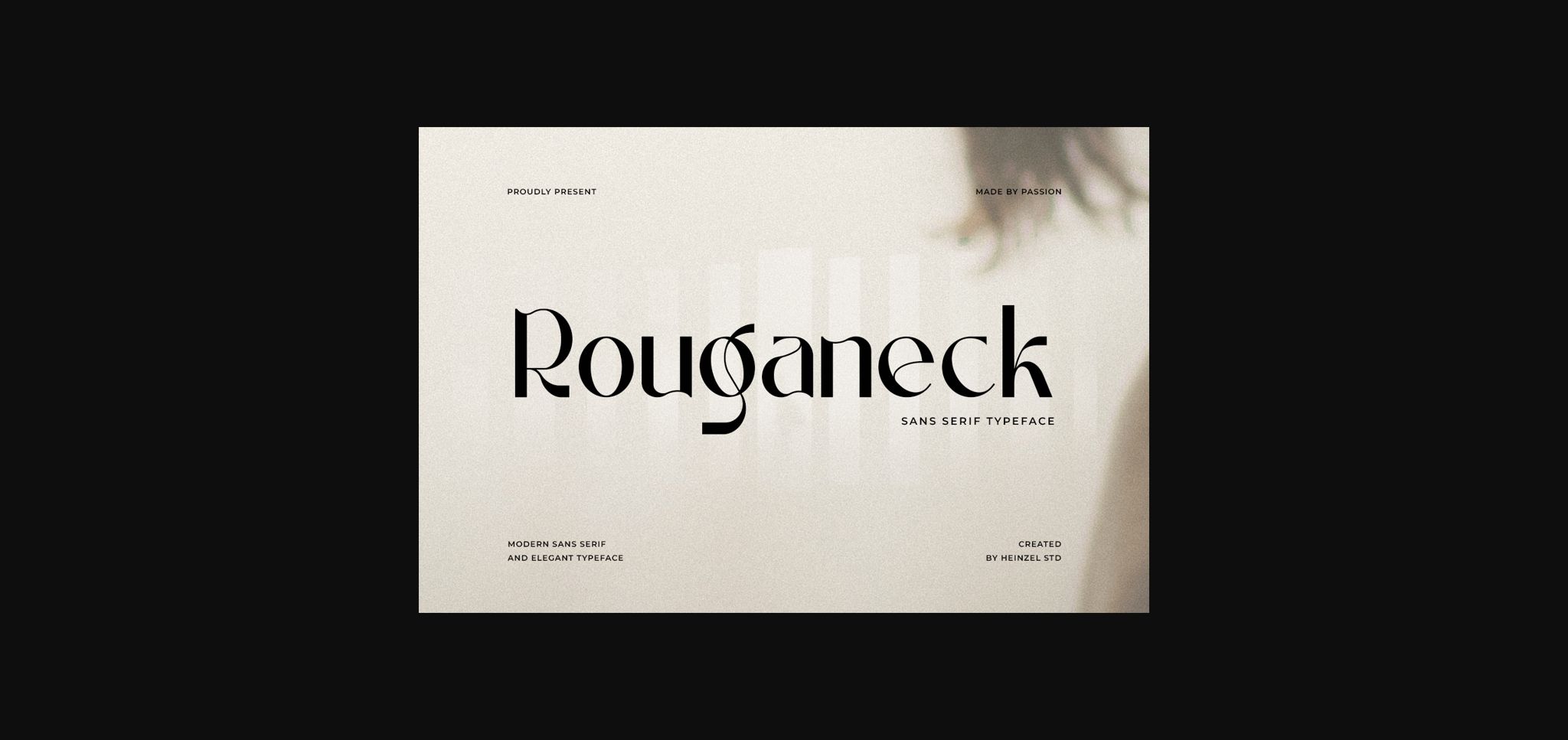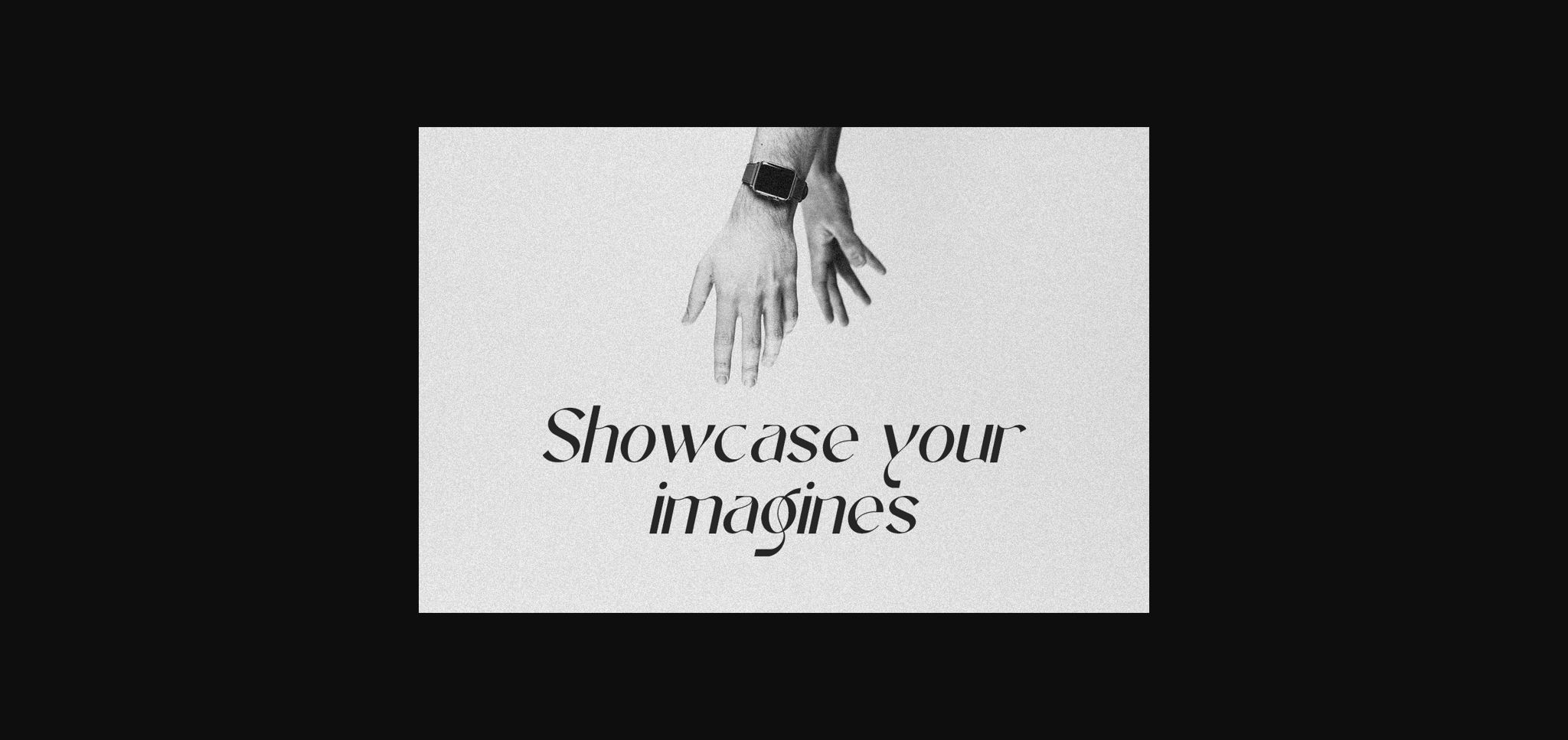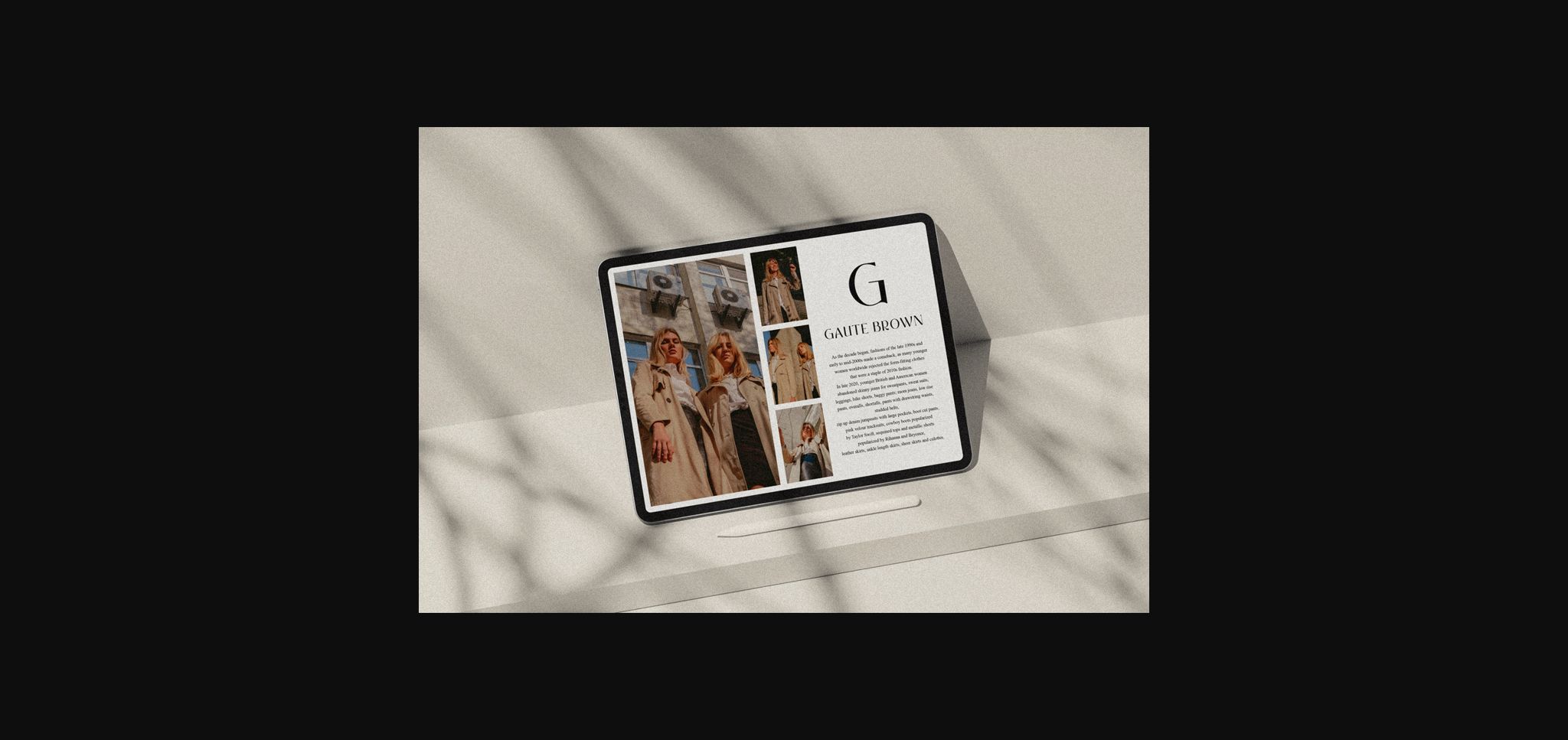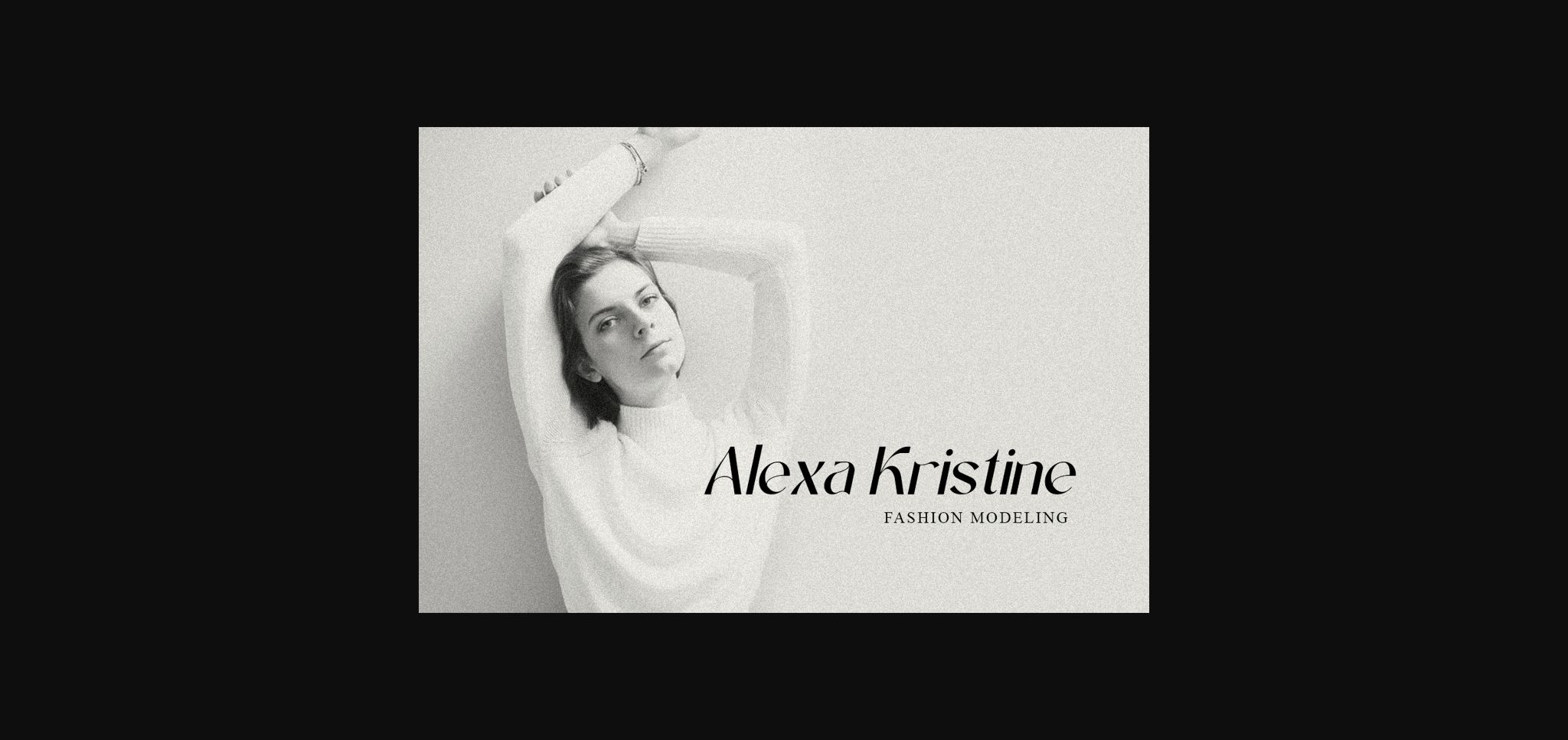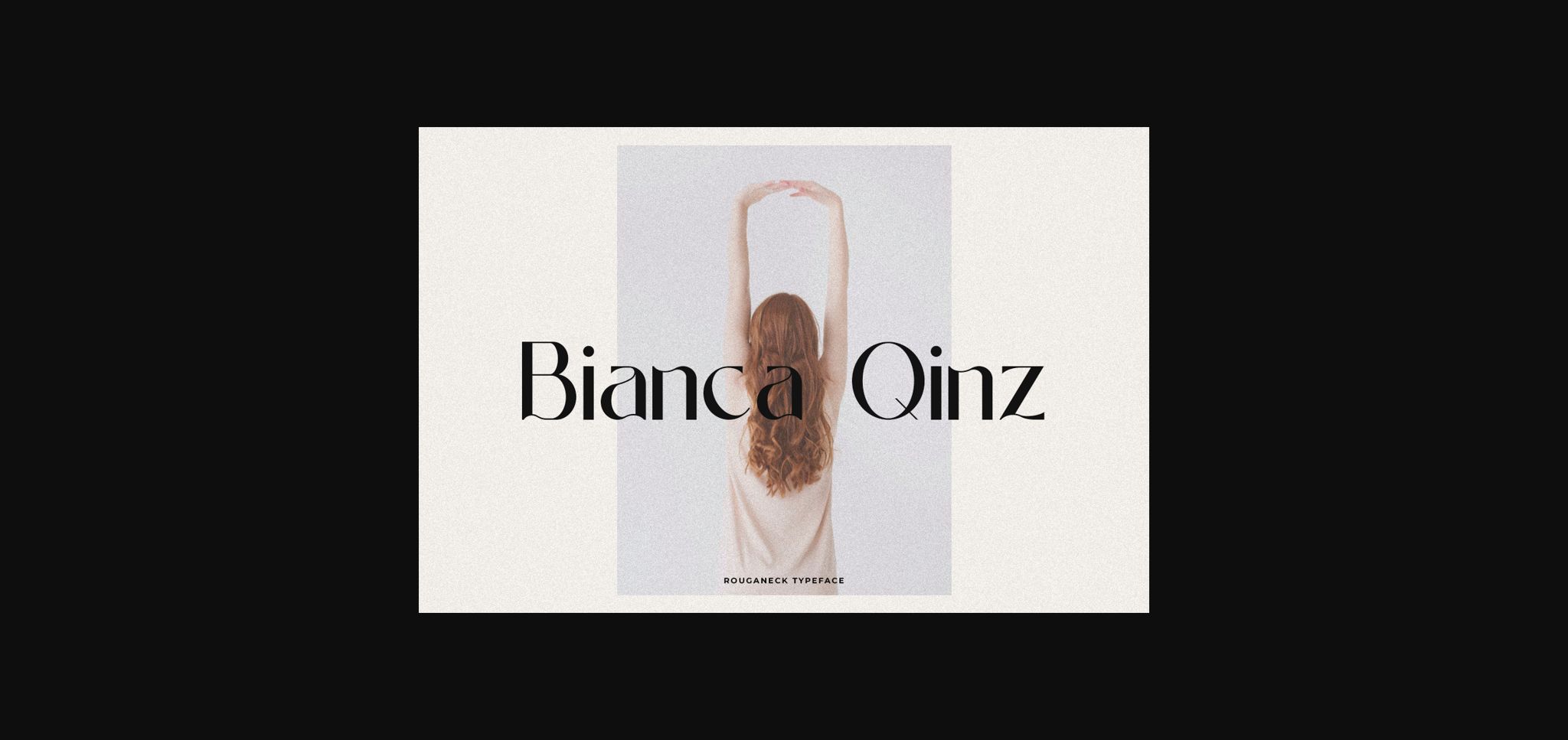
About Rouganeck Font
Rouganeck is an elegant and modern sans serif font. Fall for its ravishing style and use it to create gorgeous wedding invitations, logos, branding, headlines, beautiful stationary art, eye-catching social media posts, websites, and much more!